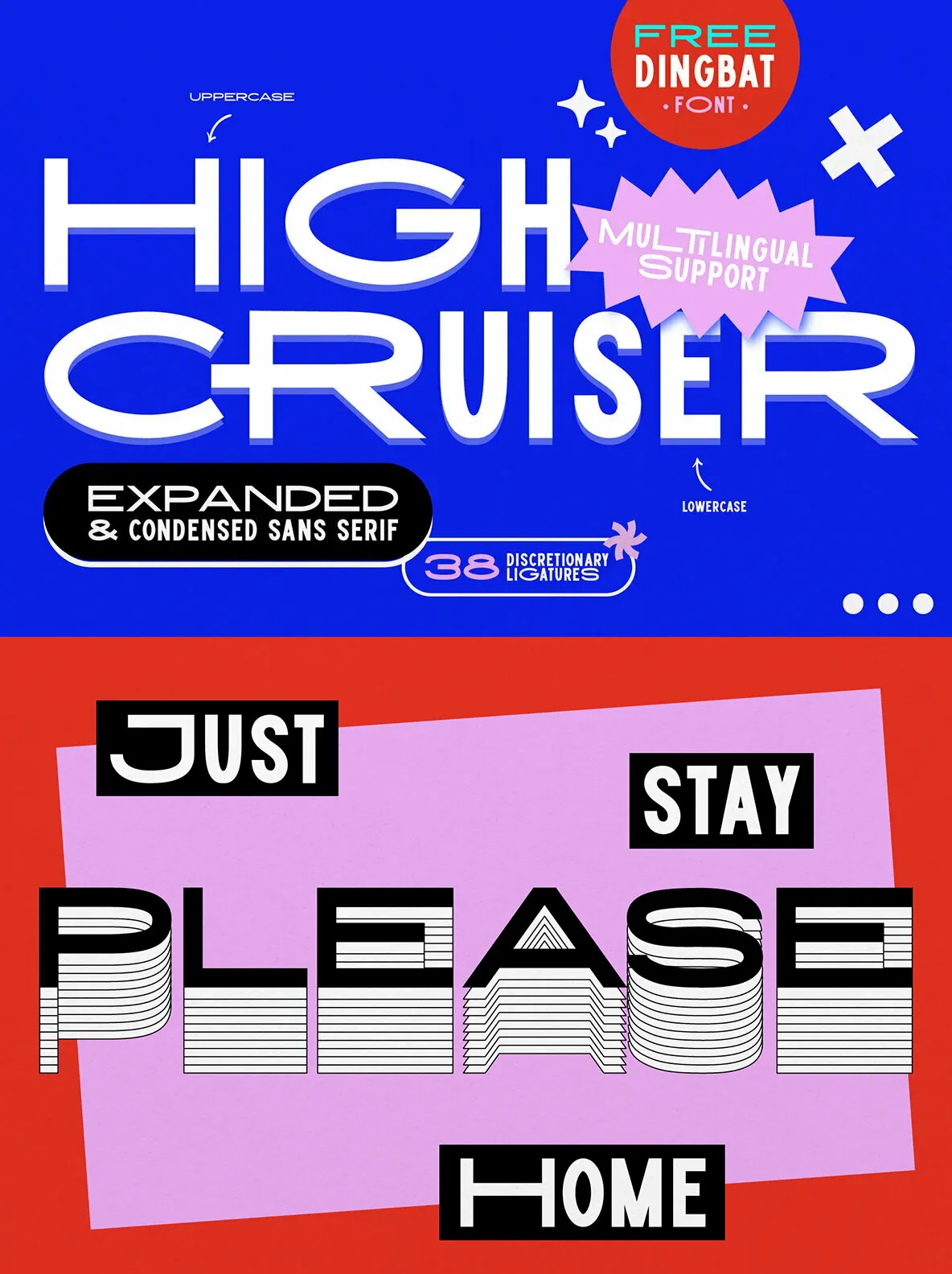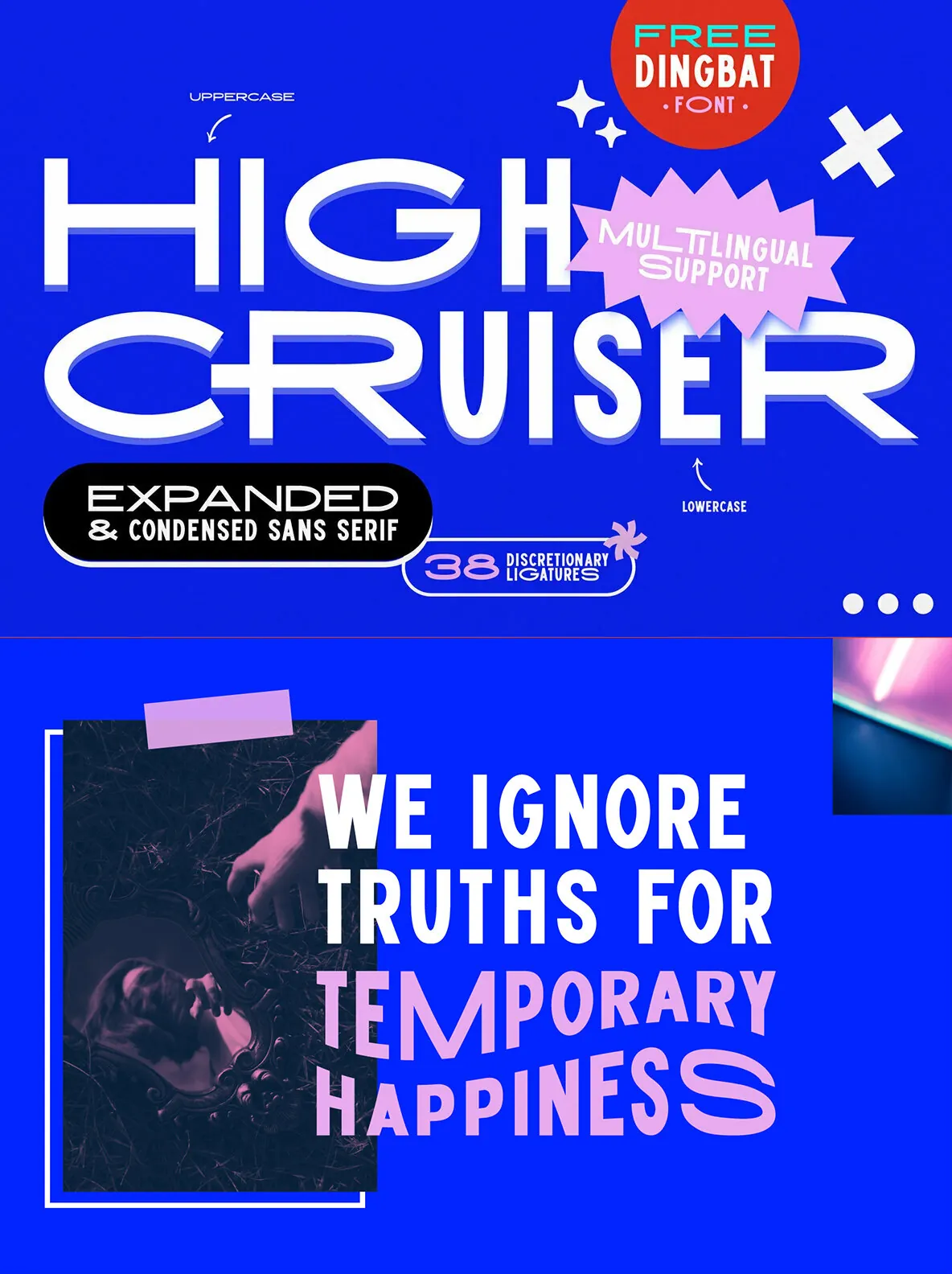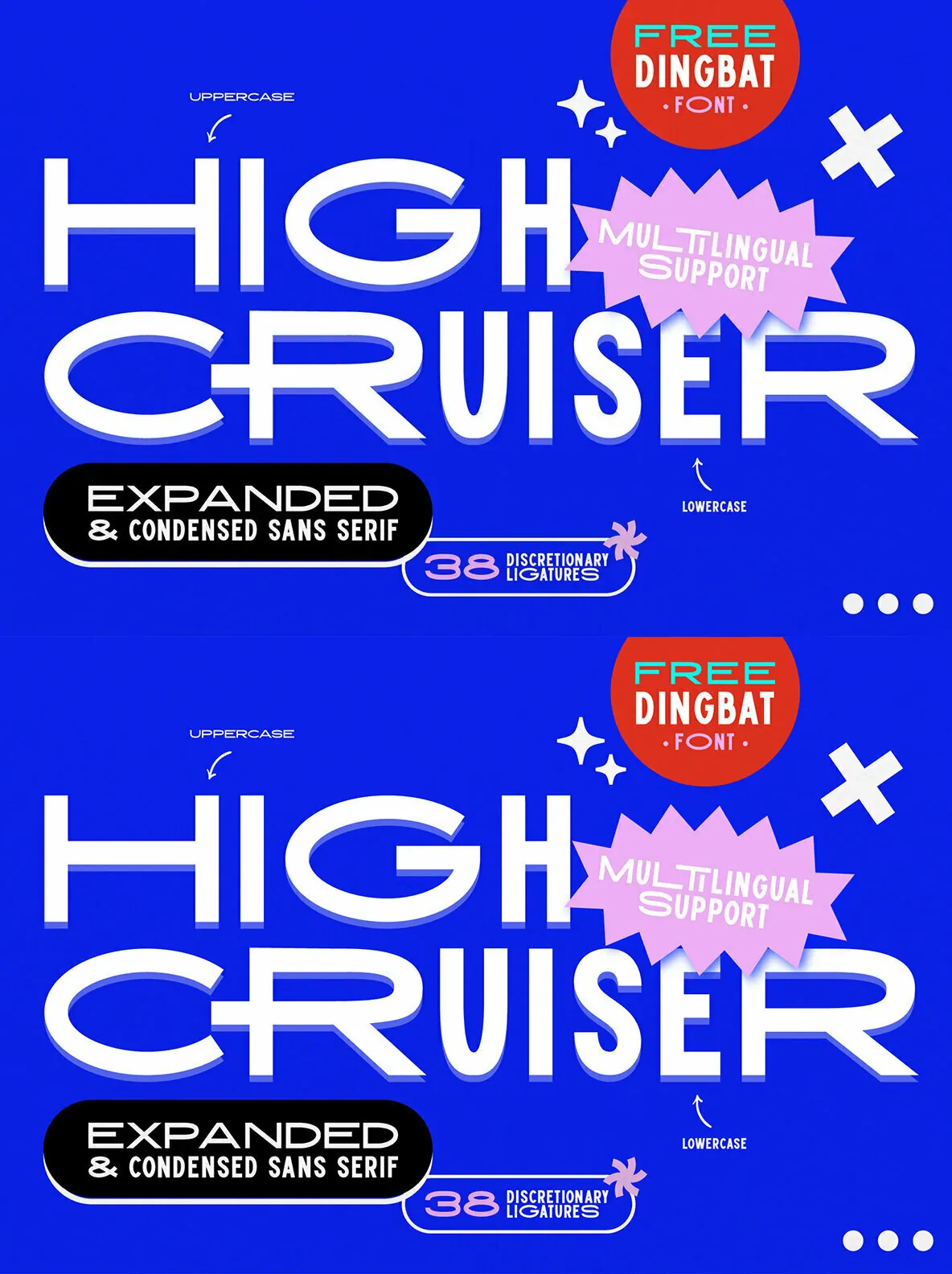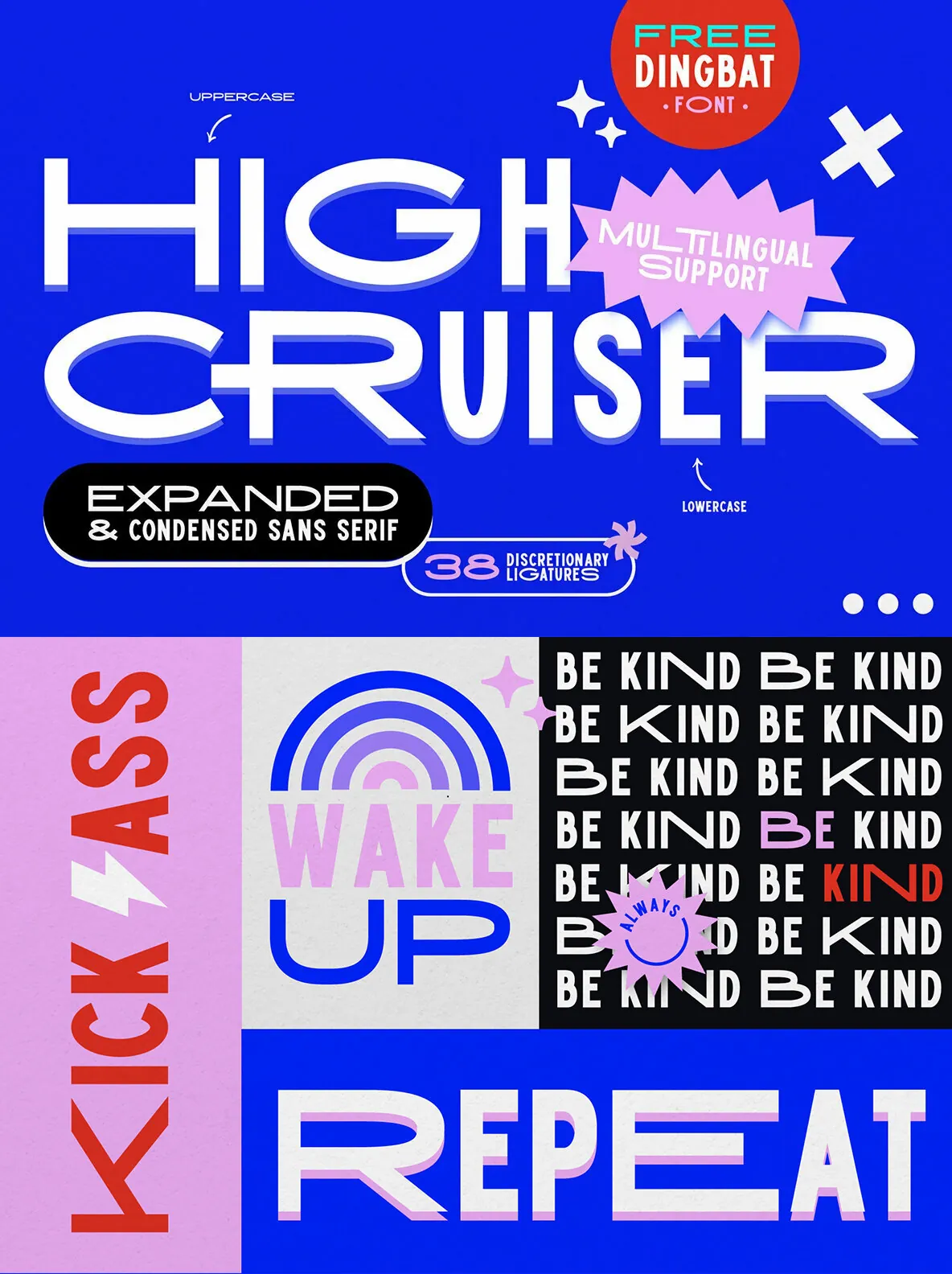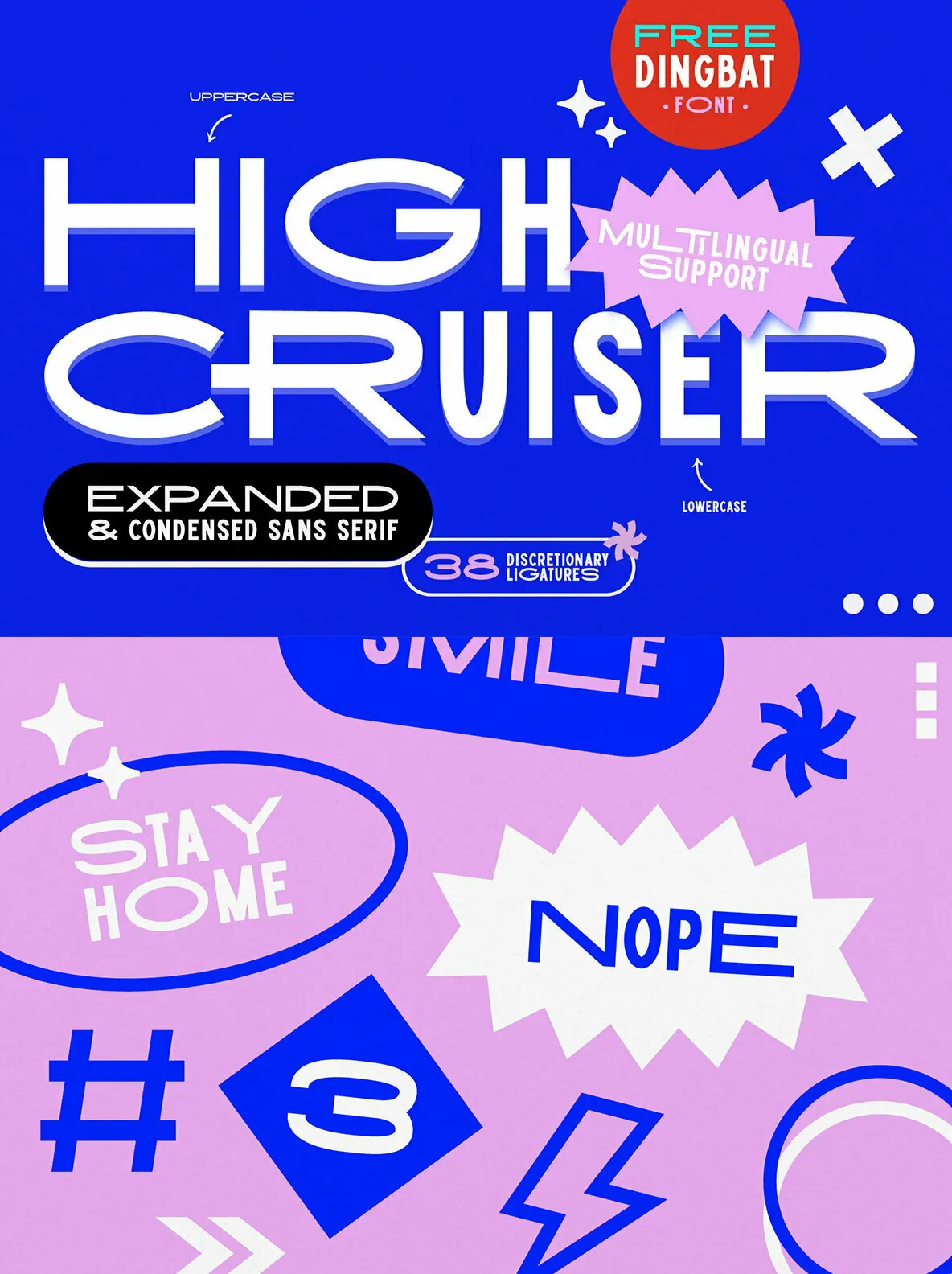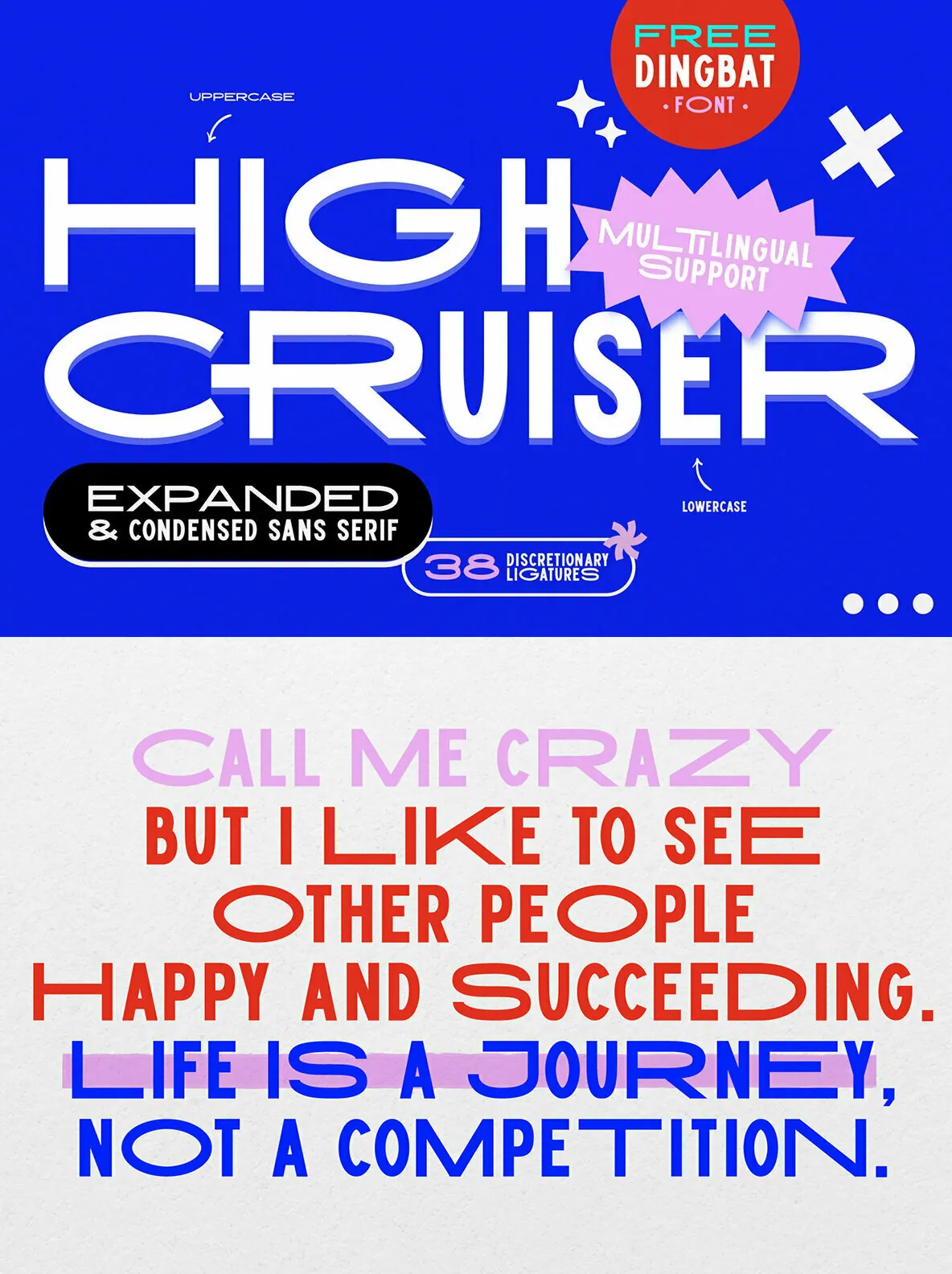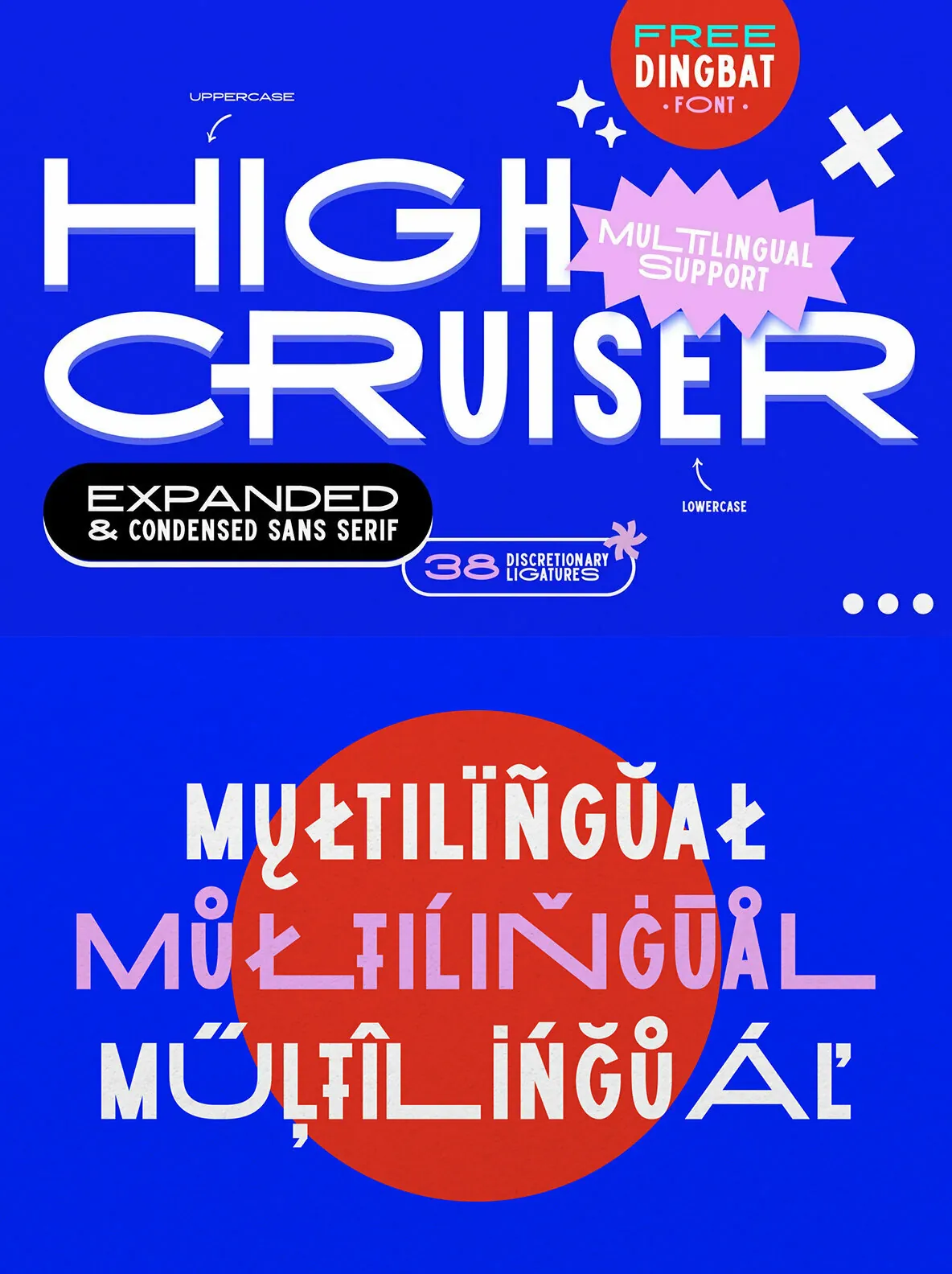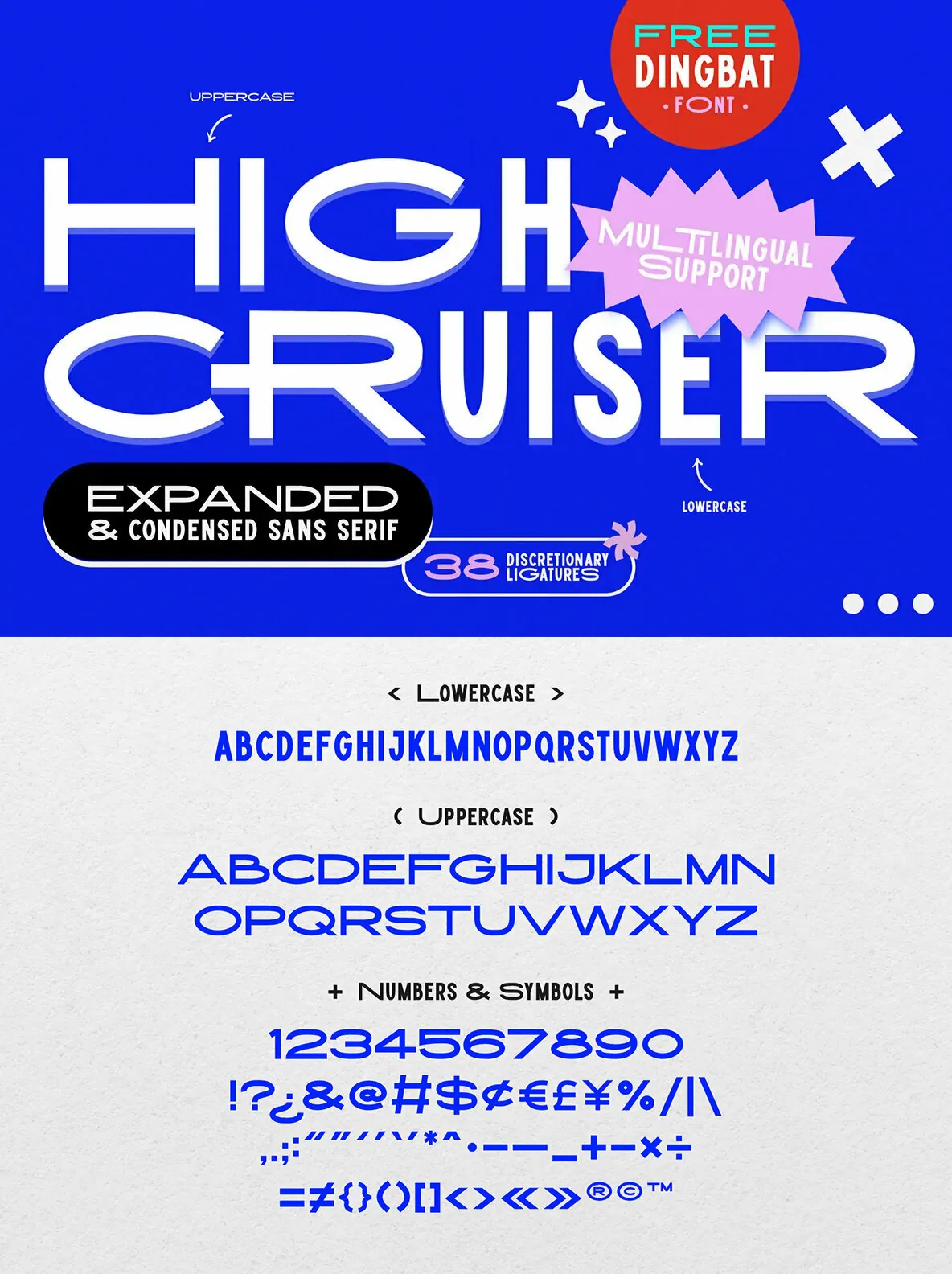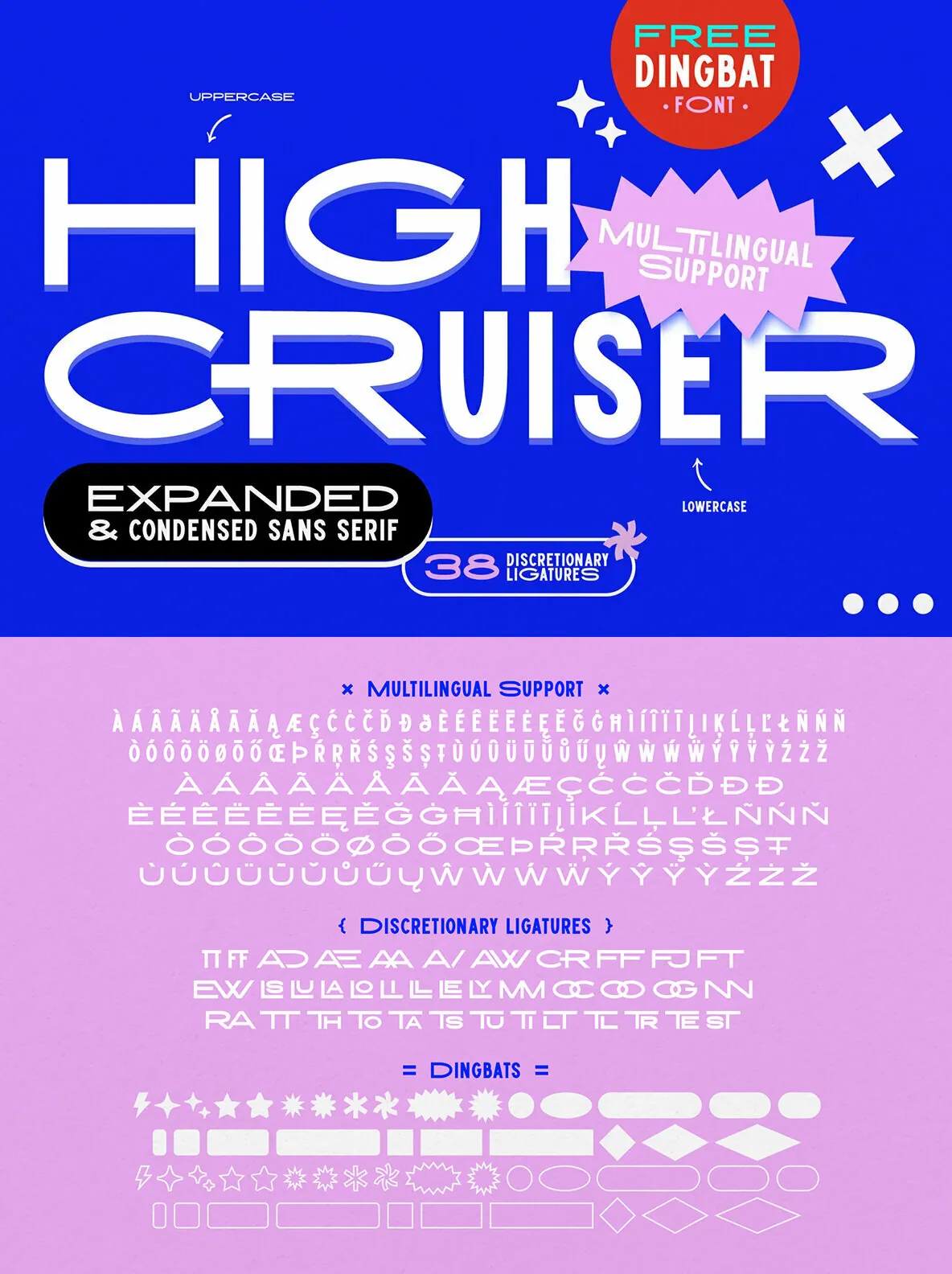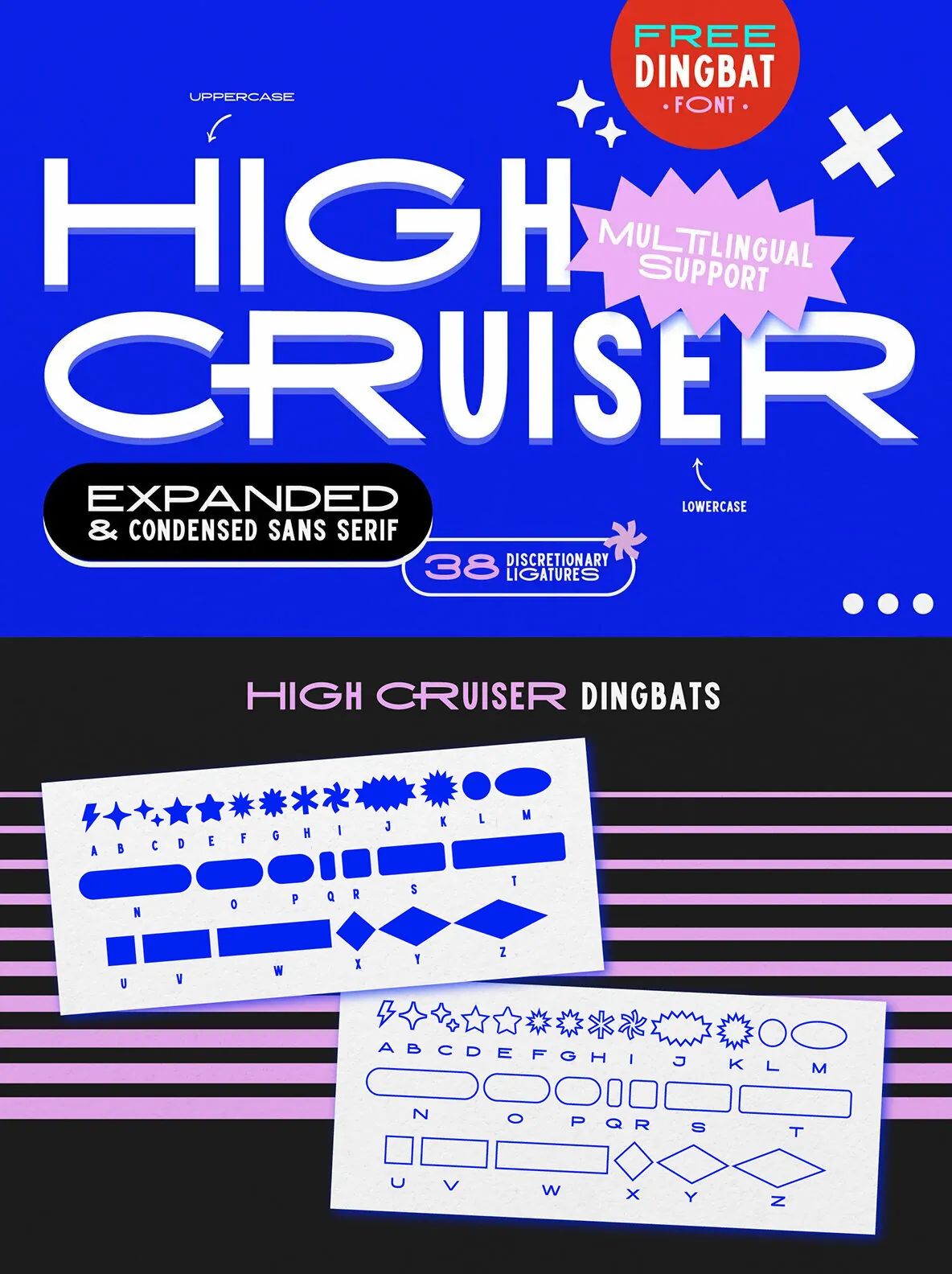
High Cruiser is a modern and bold sans serif, all caps typeface that gives a strong, stunning visual impact. Perfect for editorial design, brand identity, logo design, typography posters, event collateral, packaging – and absolutely anything!
High Cruiser comes as a font duo – Regular & Dingbats. Switch between expanded and condensed version by using letter case, and design it further with the FREE dingbat font (a-z, A-Z) that was used in the visuals!